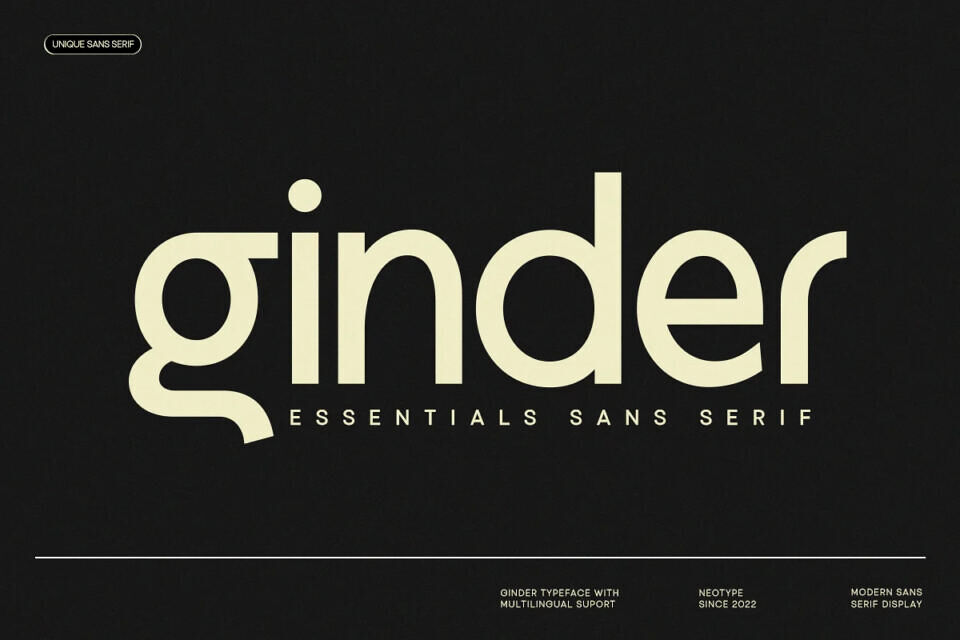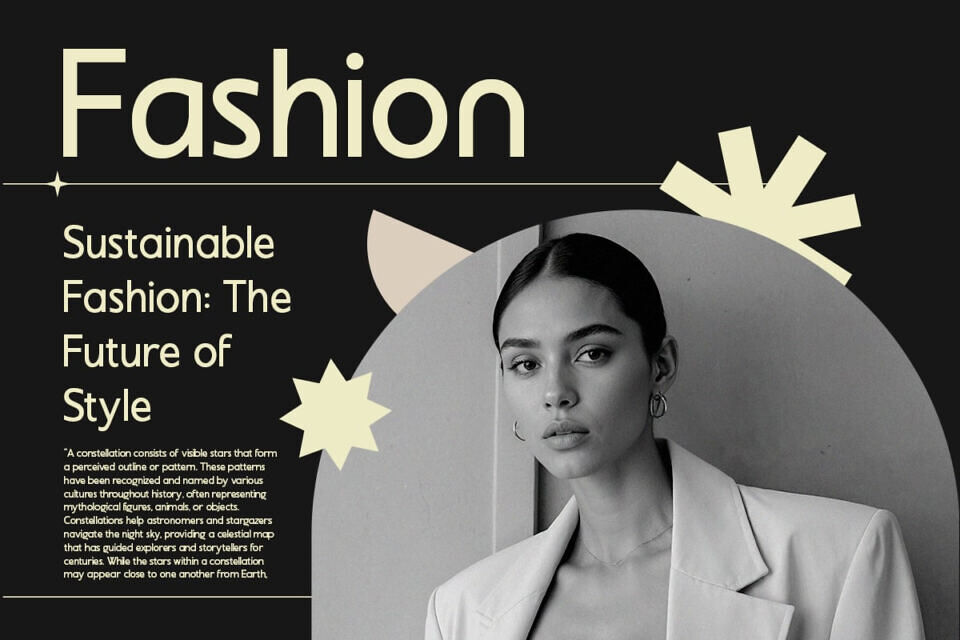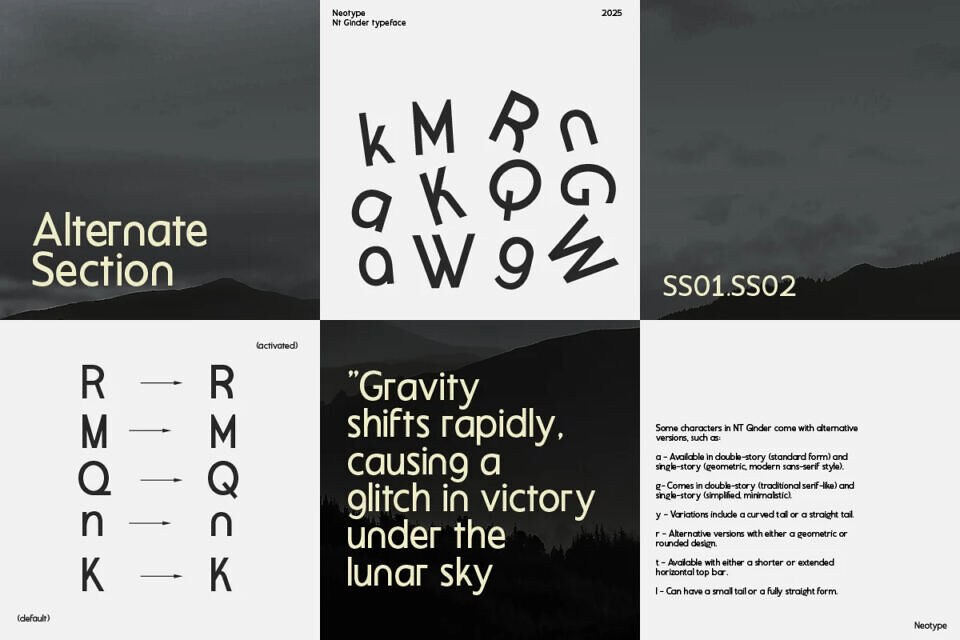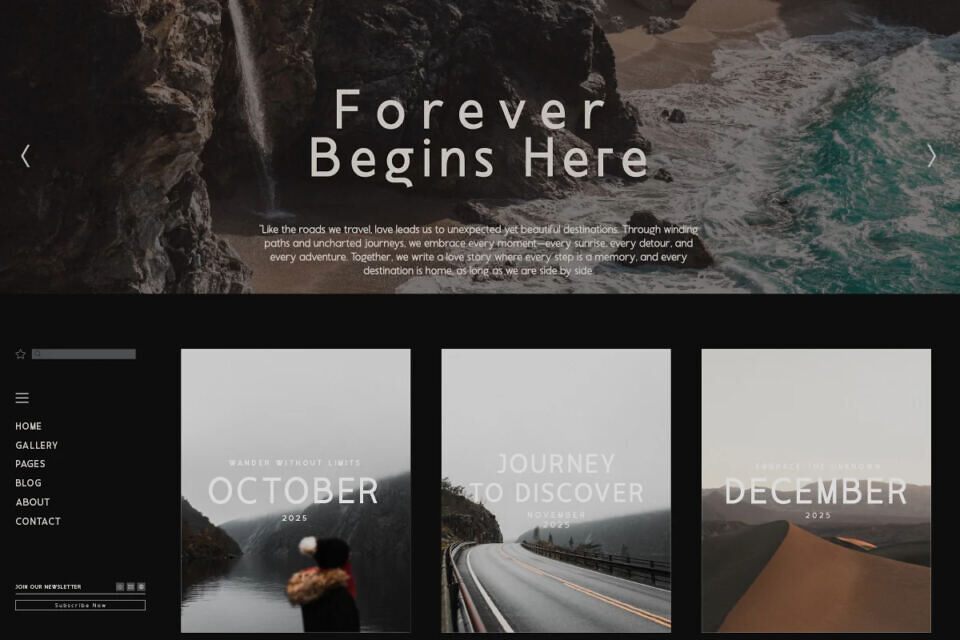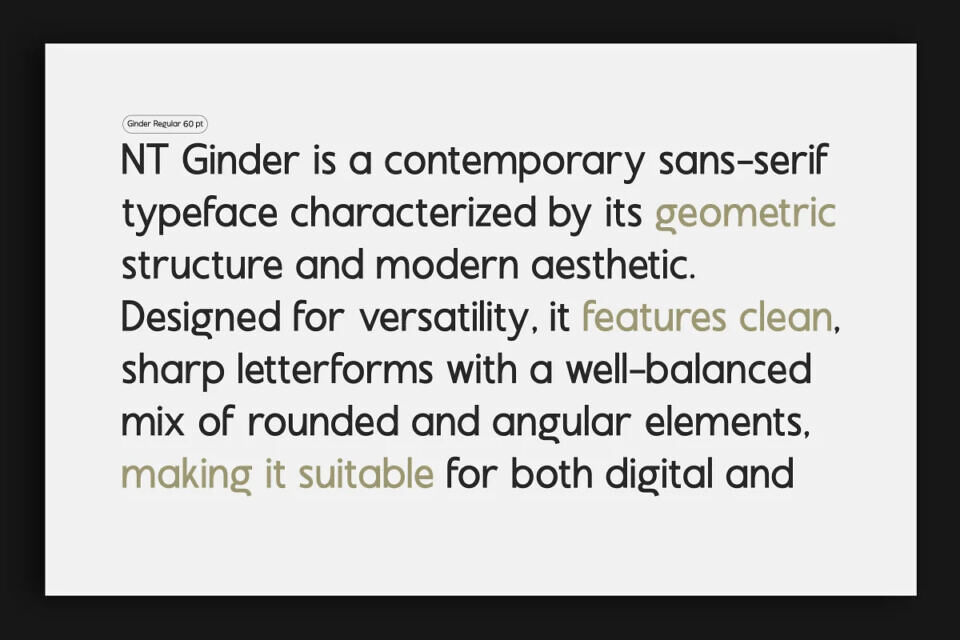
NT Ginder is a modern sans serif with a calm strength. Balanced between clarity and character, its regular weight brings quiet confidence to headlines, branding, and editorial work. Clean, versatile, and subtly expressive — NT Ginder lets your message lead with ease and elegance.